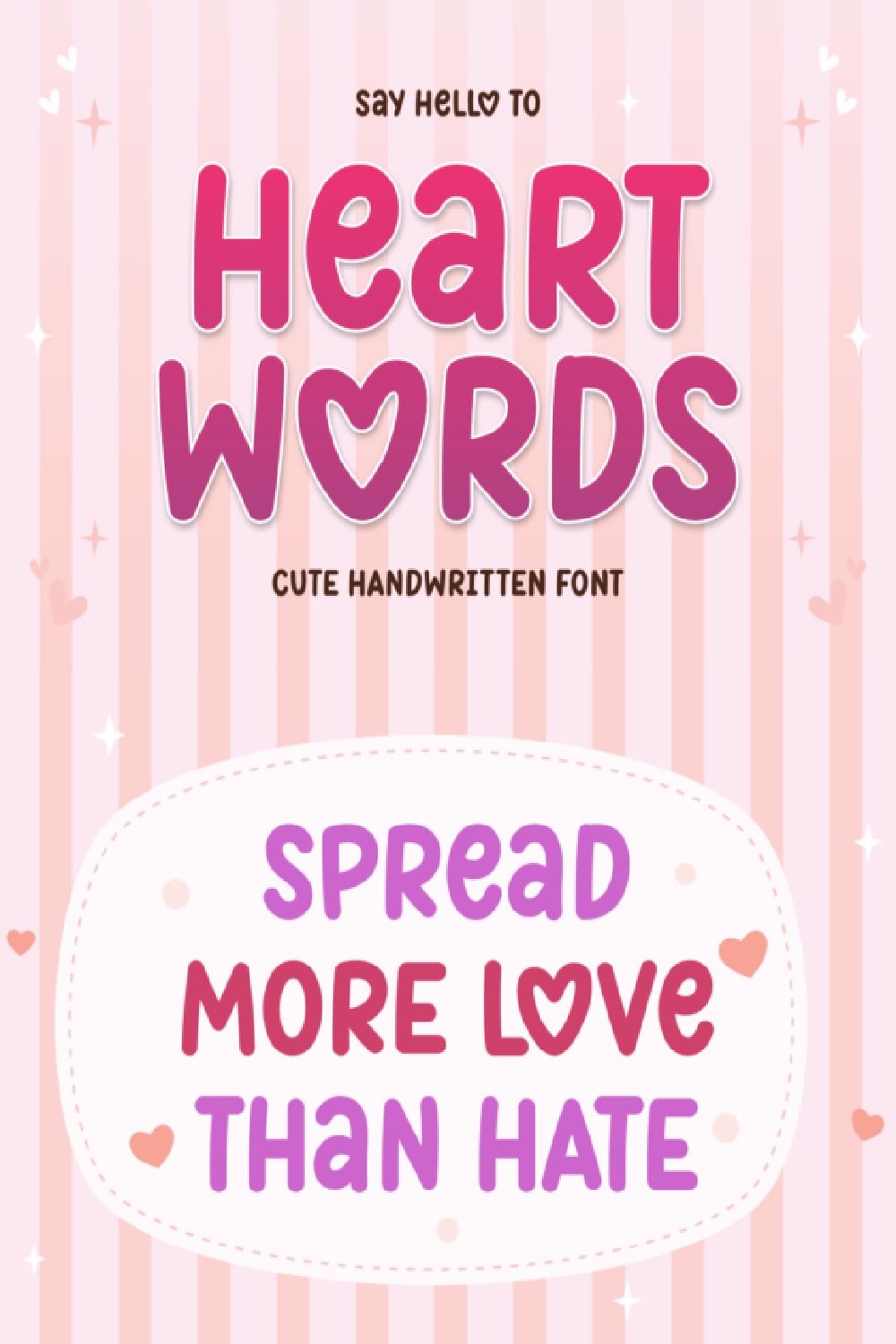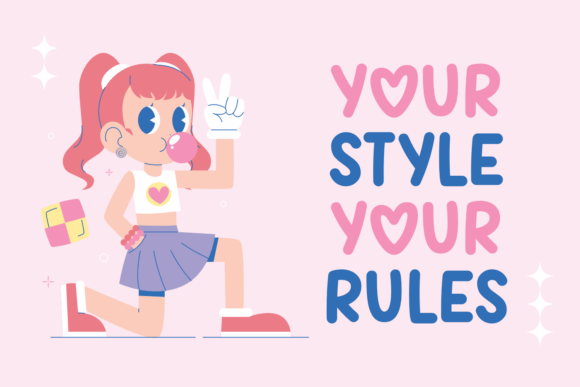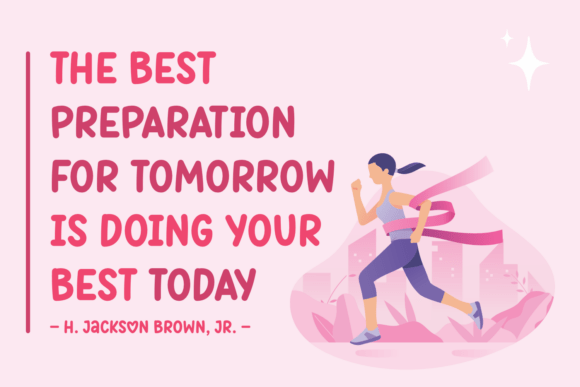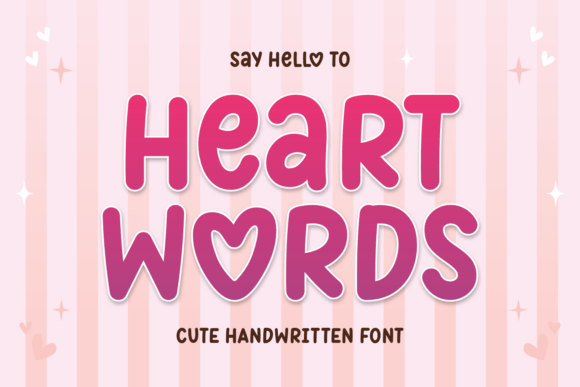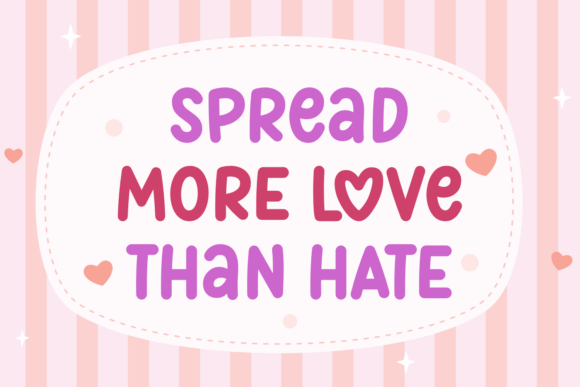
Heart Words Font: A Cute Handwritten Font for Cricut & DIY
About the Heart Words Font
Step up your design game with Heart Words Font, a font that exudes confidence and style. Heart Words Font is a delightful, hand-drawn typeface characterized by its playful and approachable aesthetic. It exudes warmth and friendliness, making it perfect for projects seeking a personal and inviting touch. Its charmingly uneven strokes and slight letter variations mimic genuine handwriting, while rounded edges contribute to a soft and gentle feel.
The font’s casual nature is further emphasized by the similar height of its uppercase and lowercase letters and the occasional slight tilt in certain characters, preventing a rigid appearance. Despite its whimsical style, “Heart Words Font” maintains legibility, making it suitable for short phrases, titles, and diverse creative applications, in motivational quotes, t-shirt designs, mug designs, and slide presentations.